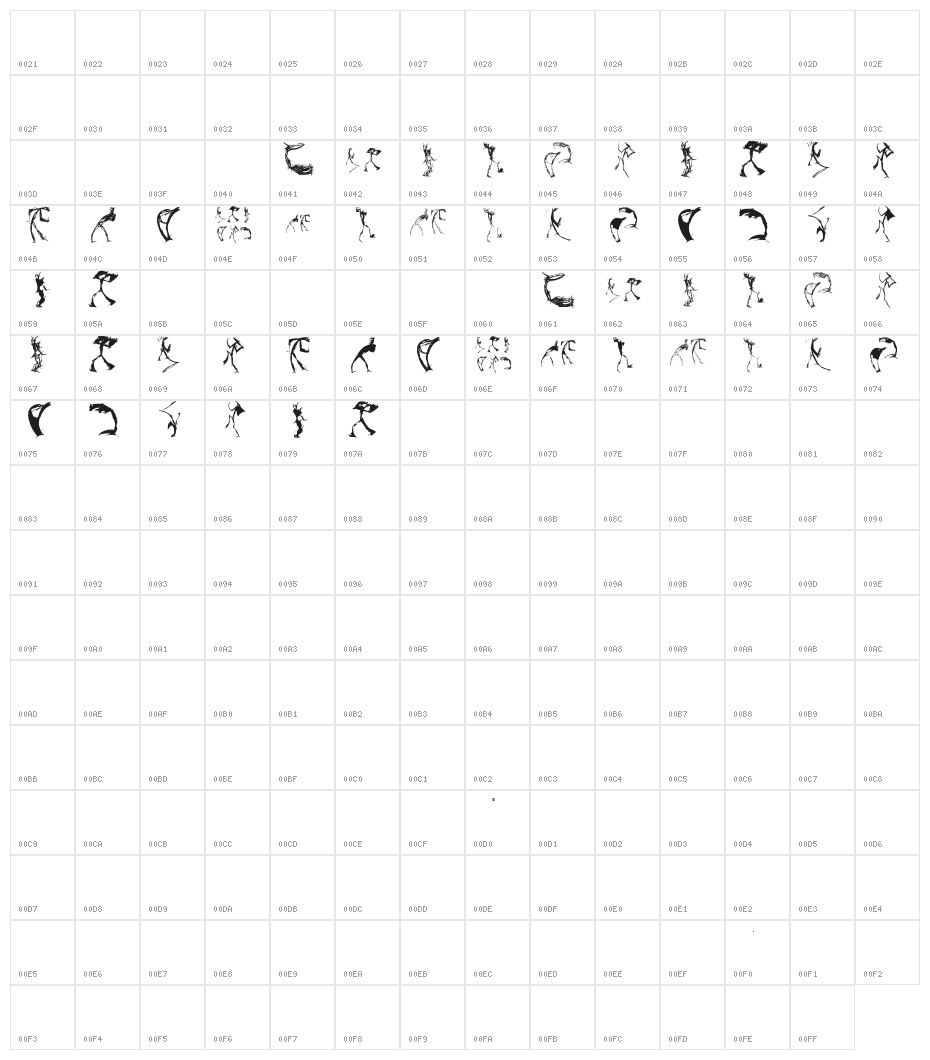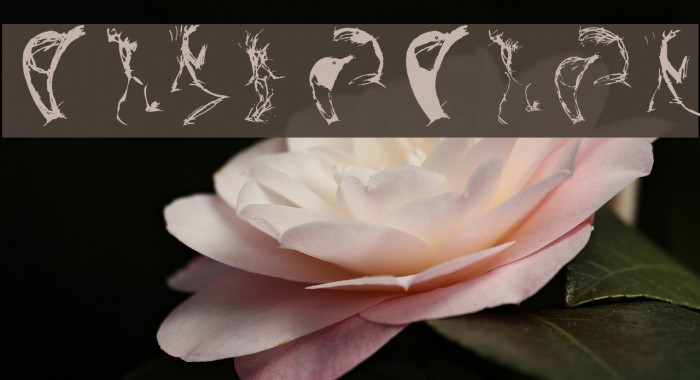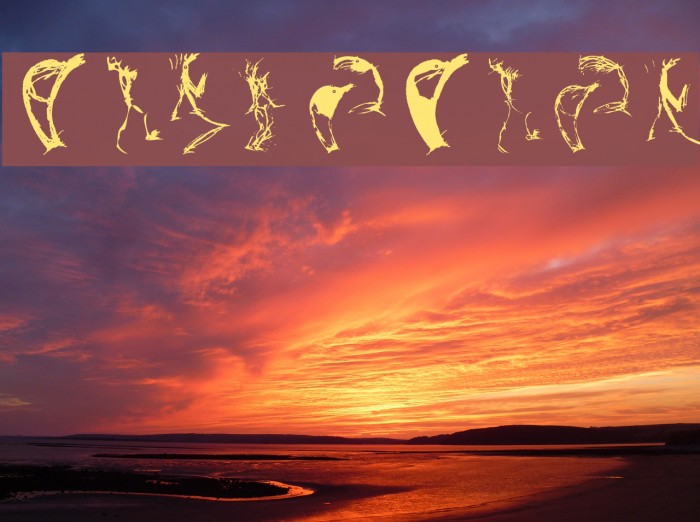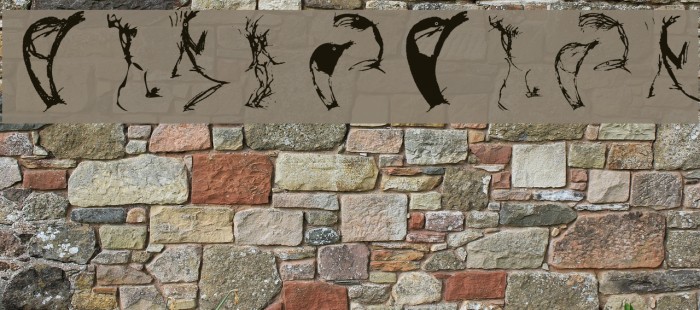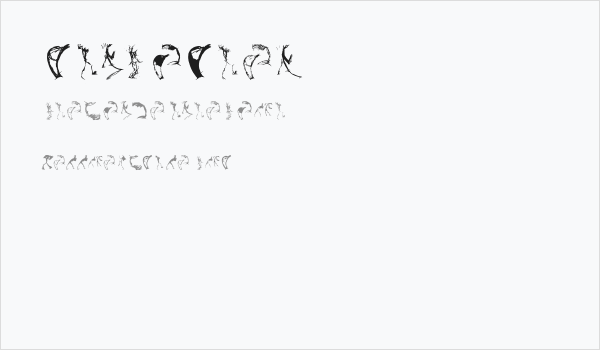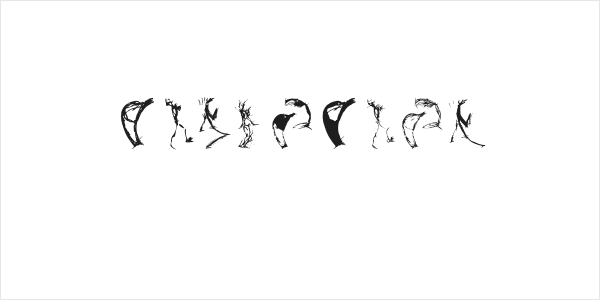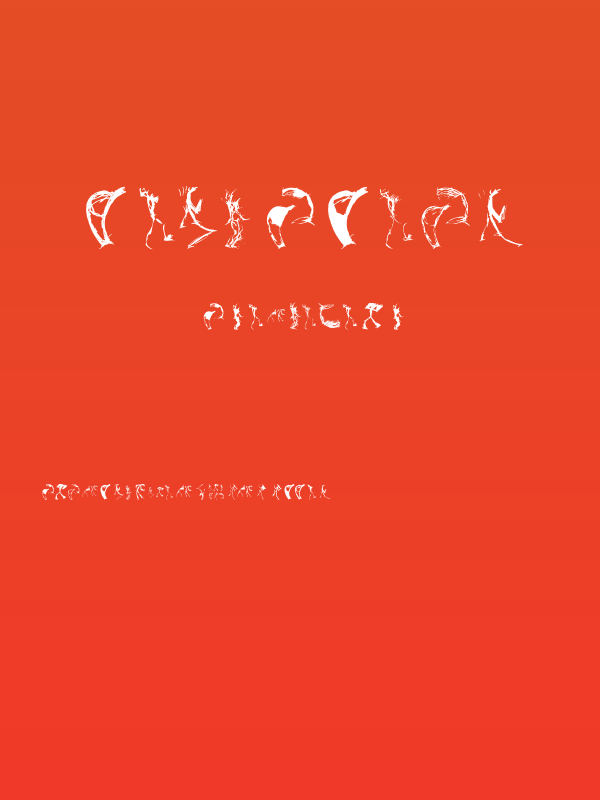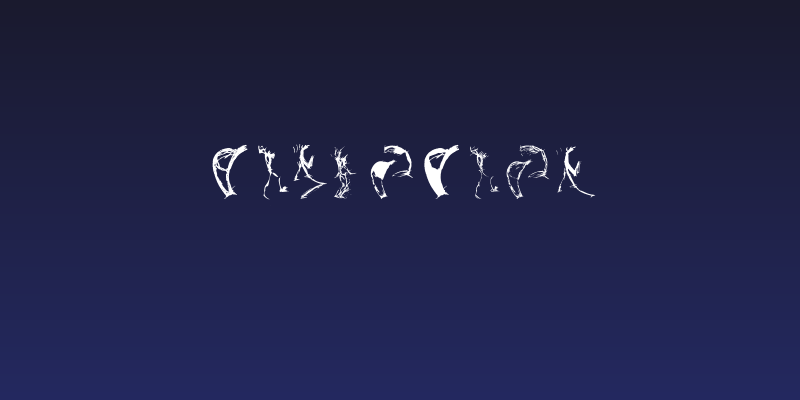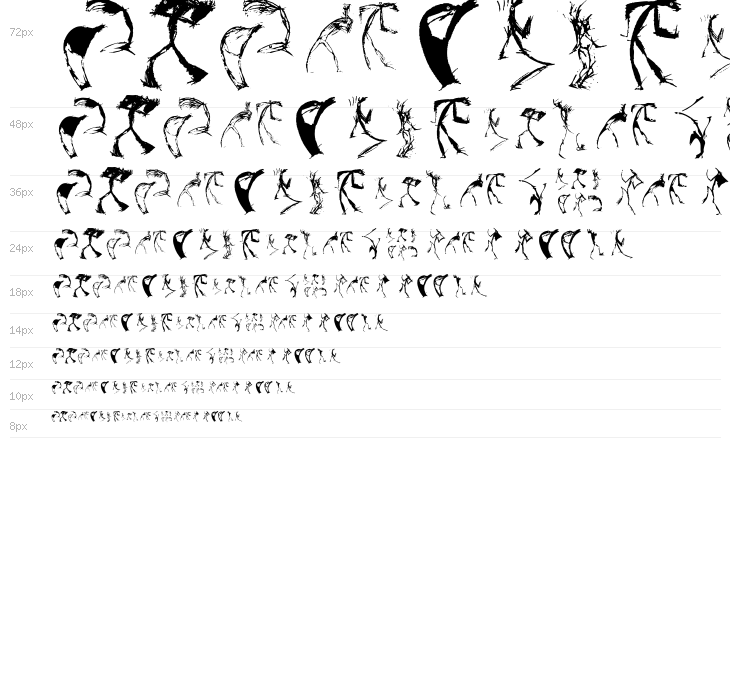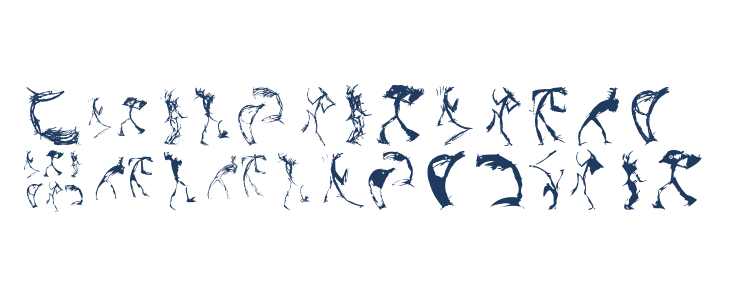
This font features a highly artistic and abstract design, resembling expressive brush strokes or ink splatters. Each character appears as a unique, dynamic form, almost like a piece of abstract art. The strokes are irregular and vary in thickness, creating a sense of movement and energy. This font is not suitable for traditional readability but serves as a striking visual element. The characters are distinct and individualistic, making it ideal for creative and unconventional projects.
Overall StyleAbstract, Artistic
Use CaseLogos, Posters, Art projects
Proposed ProjectsIdeal for artistic projects, album covers, posters, or any creative work requiring a bold visual statement.